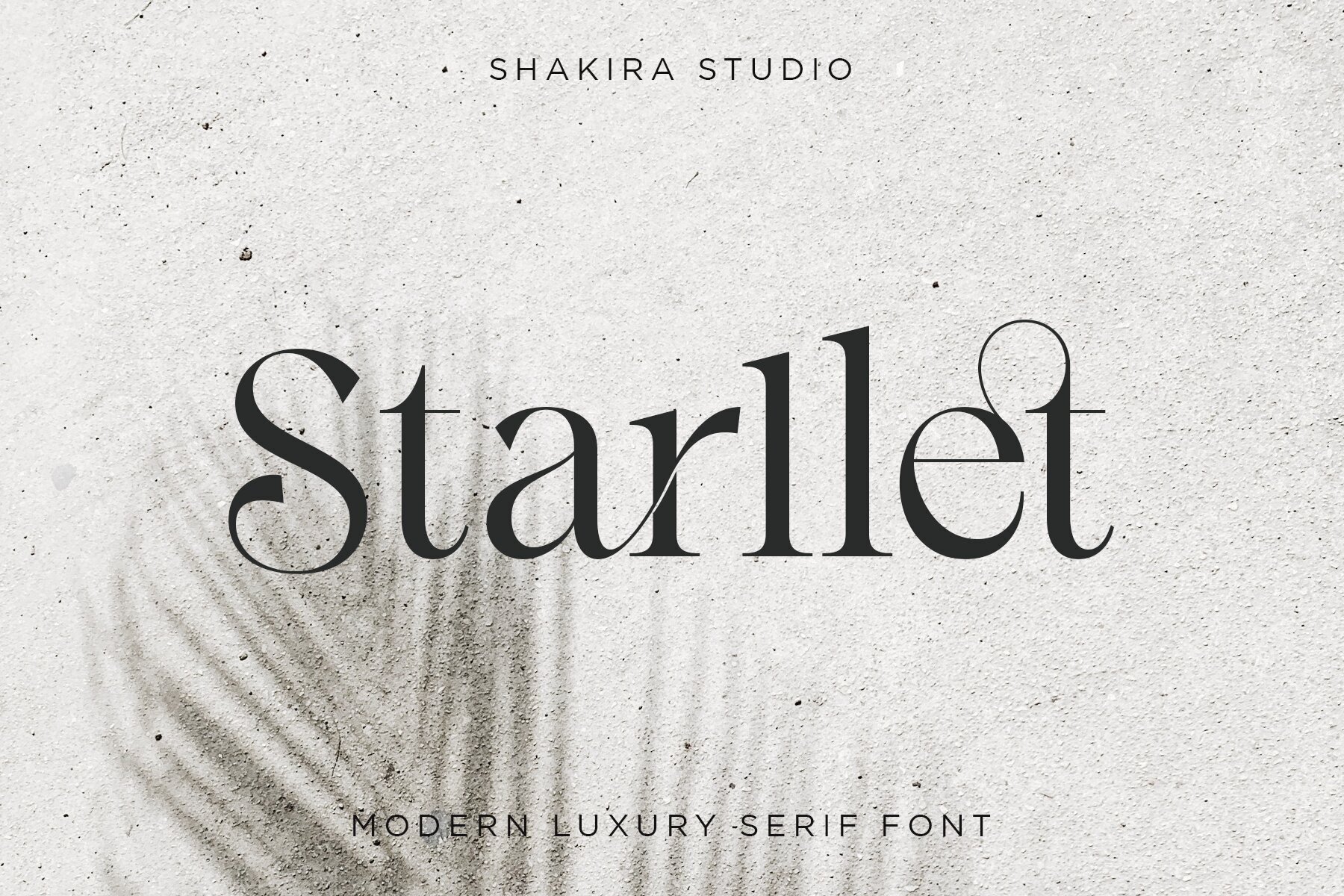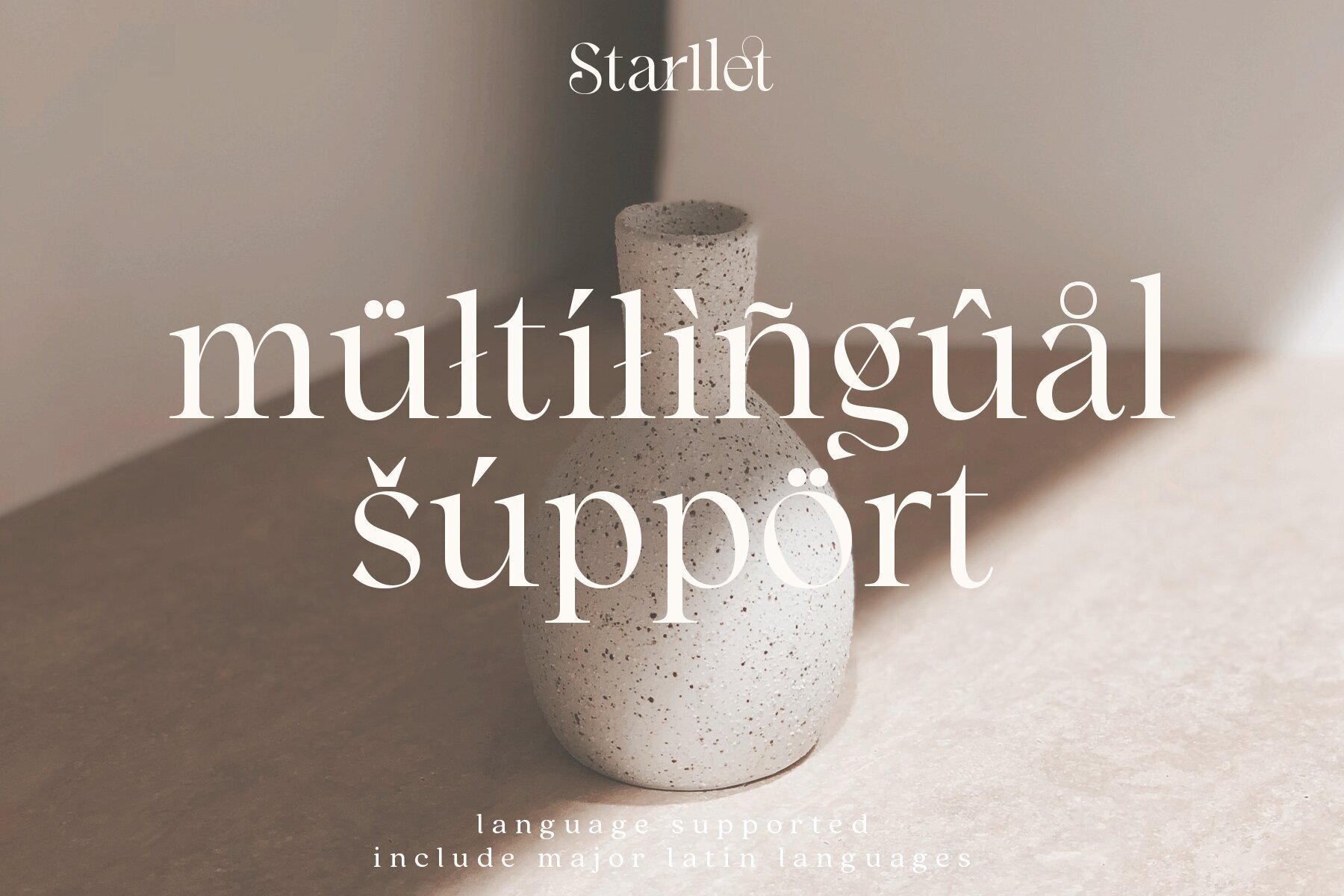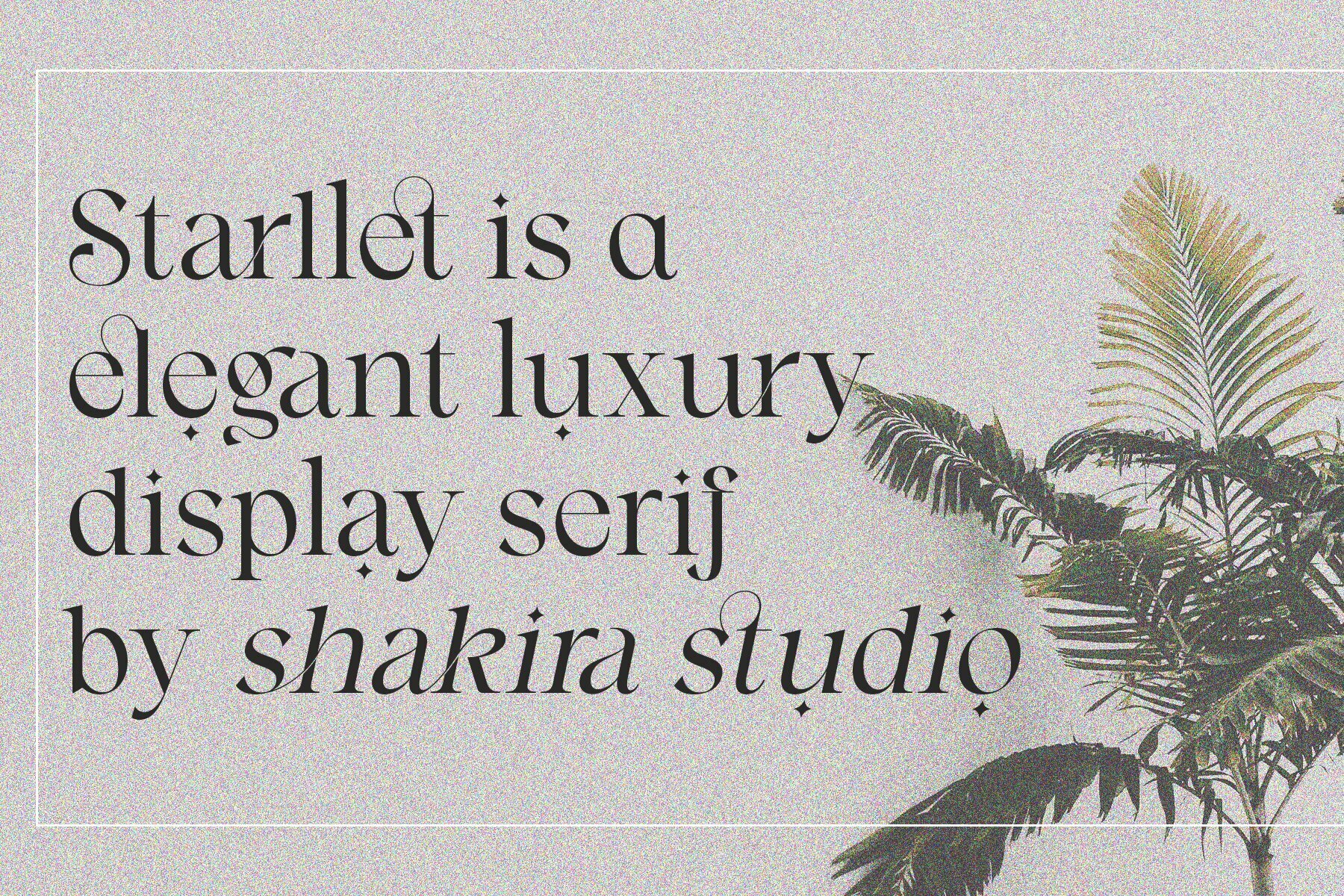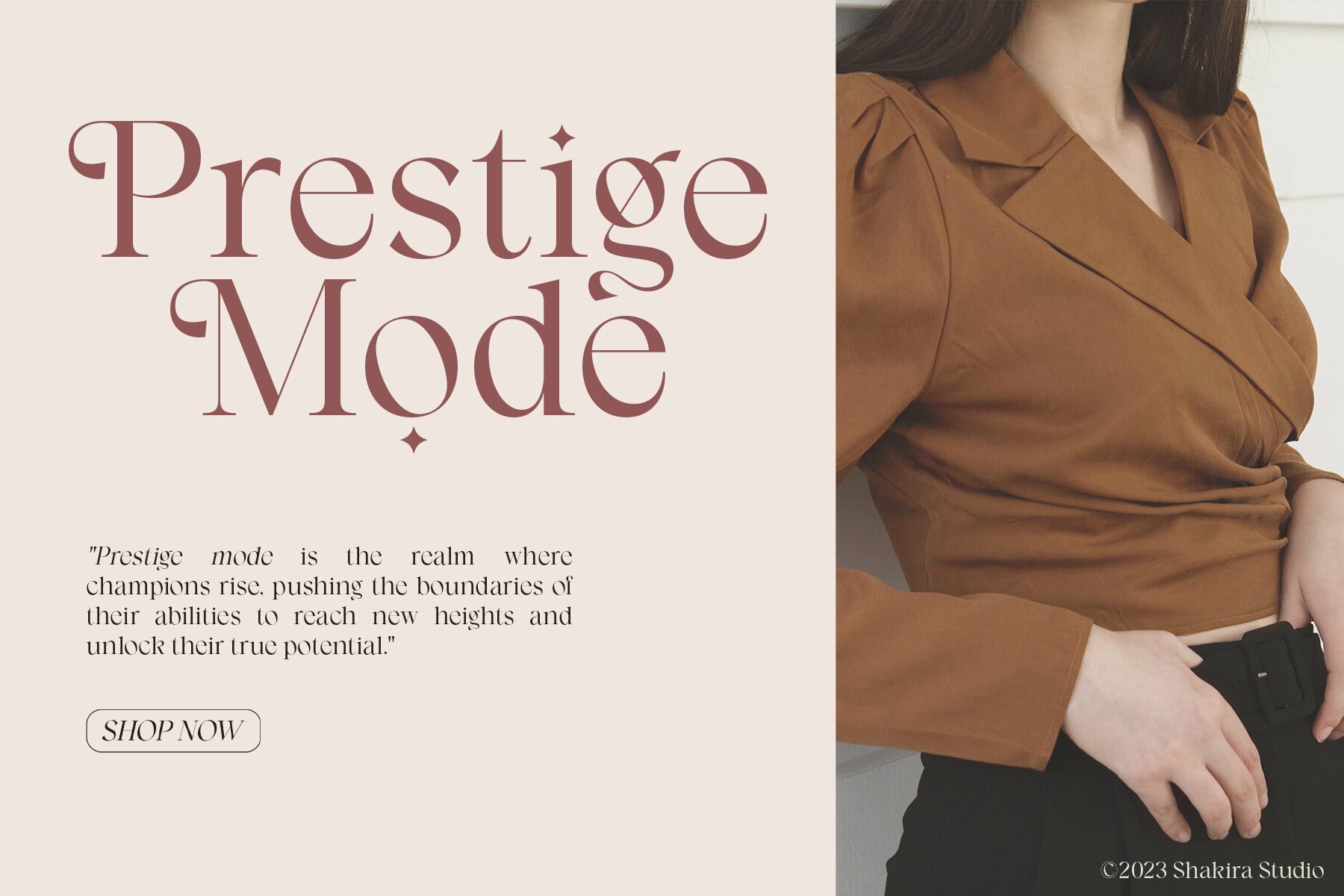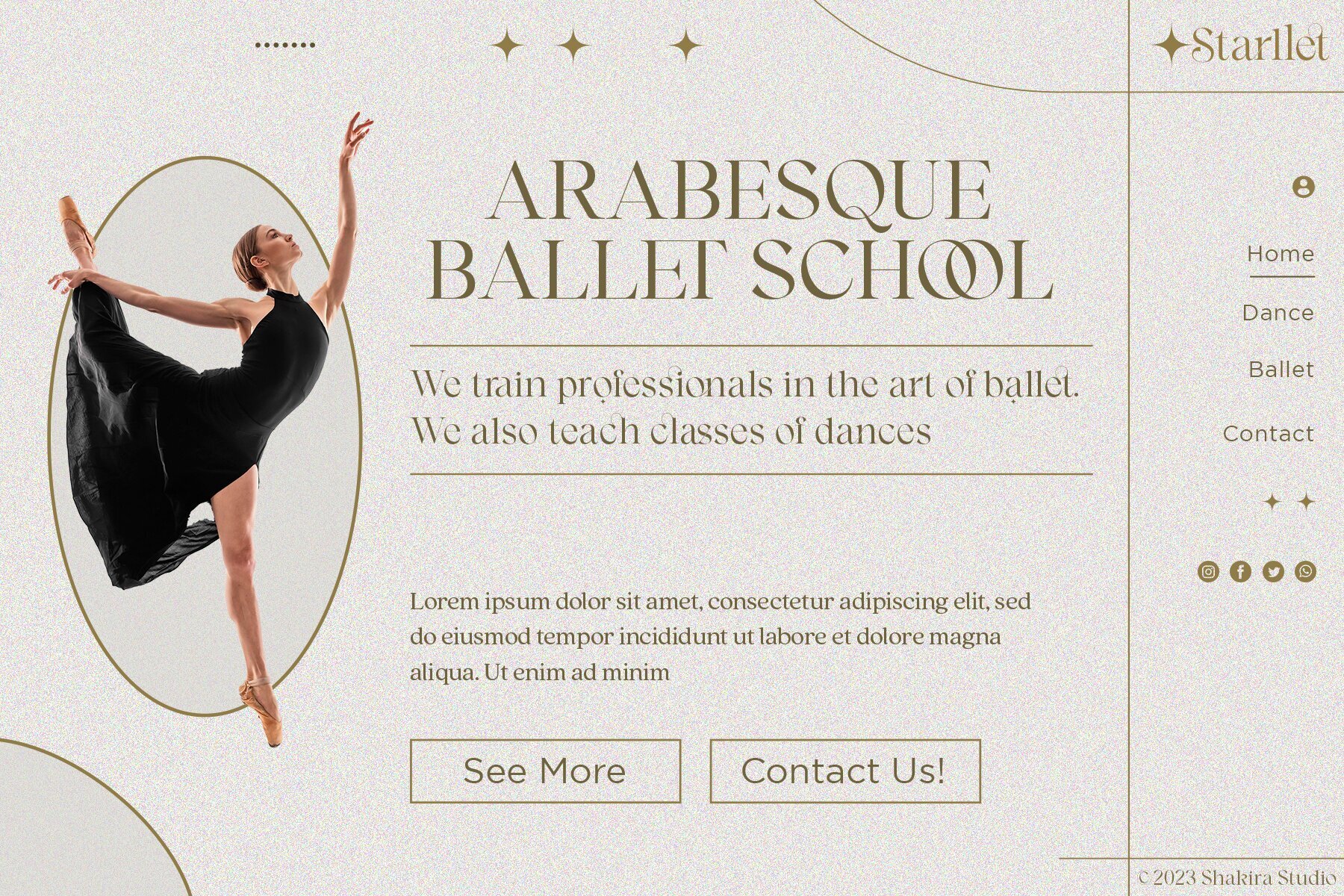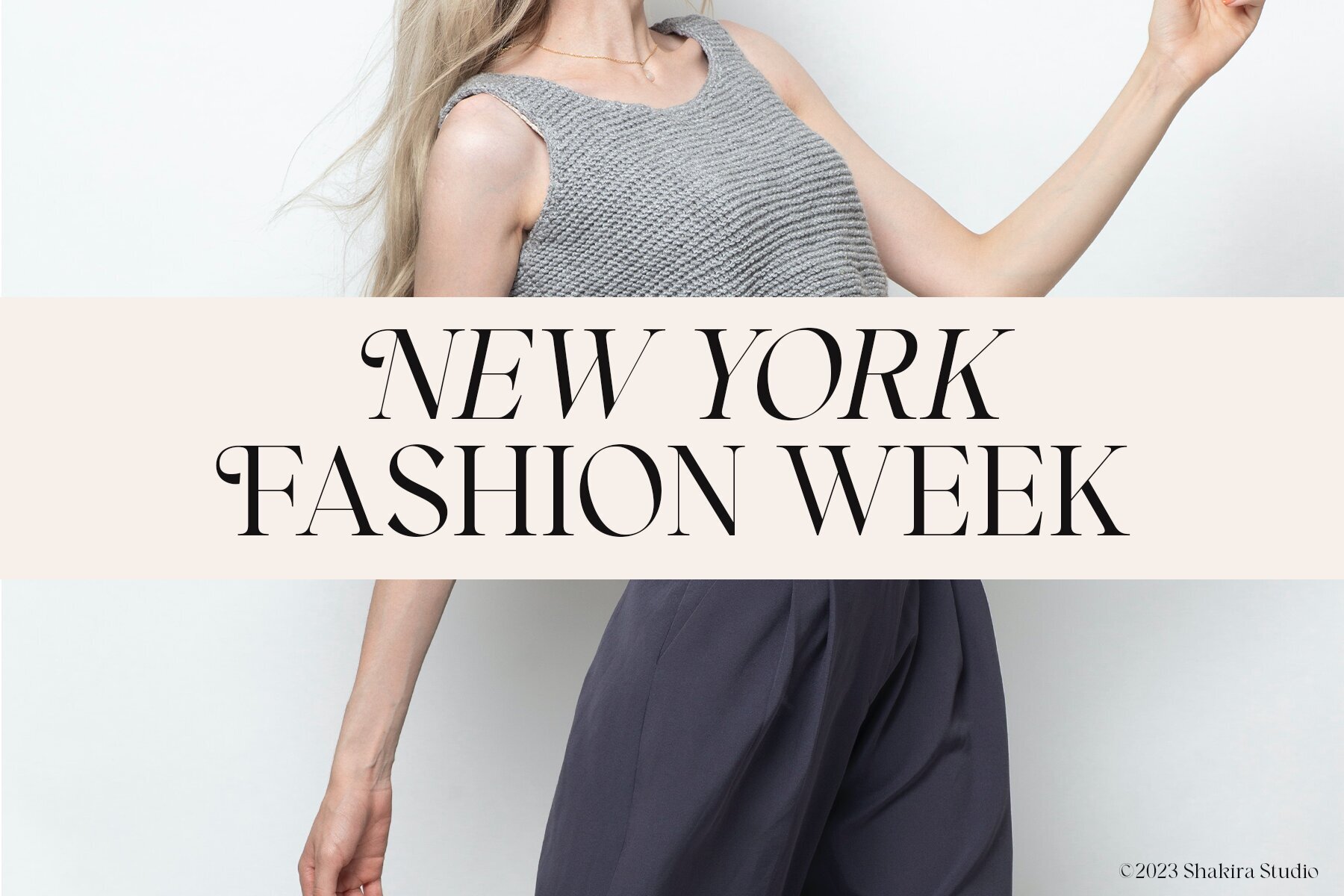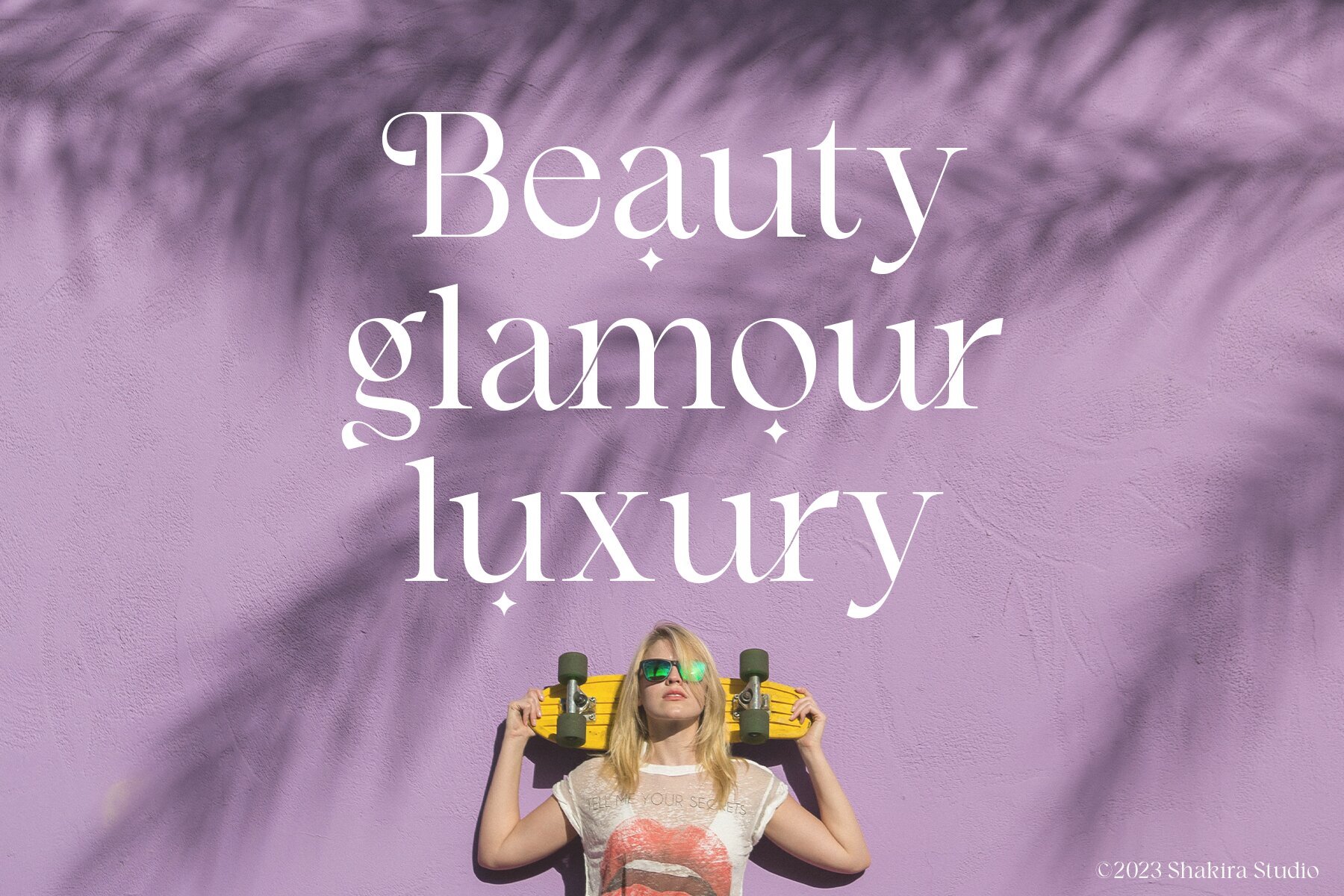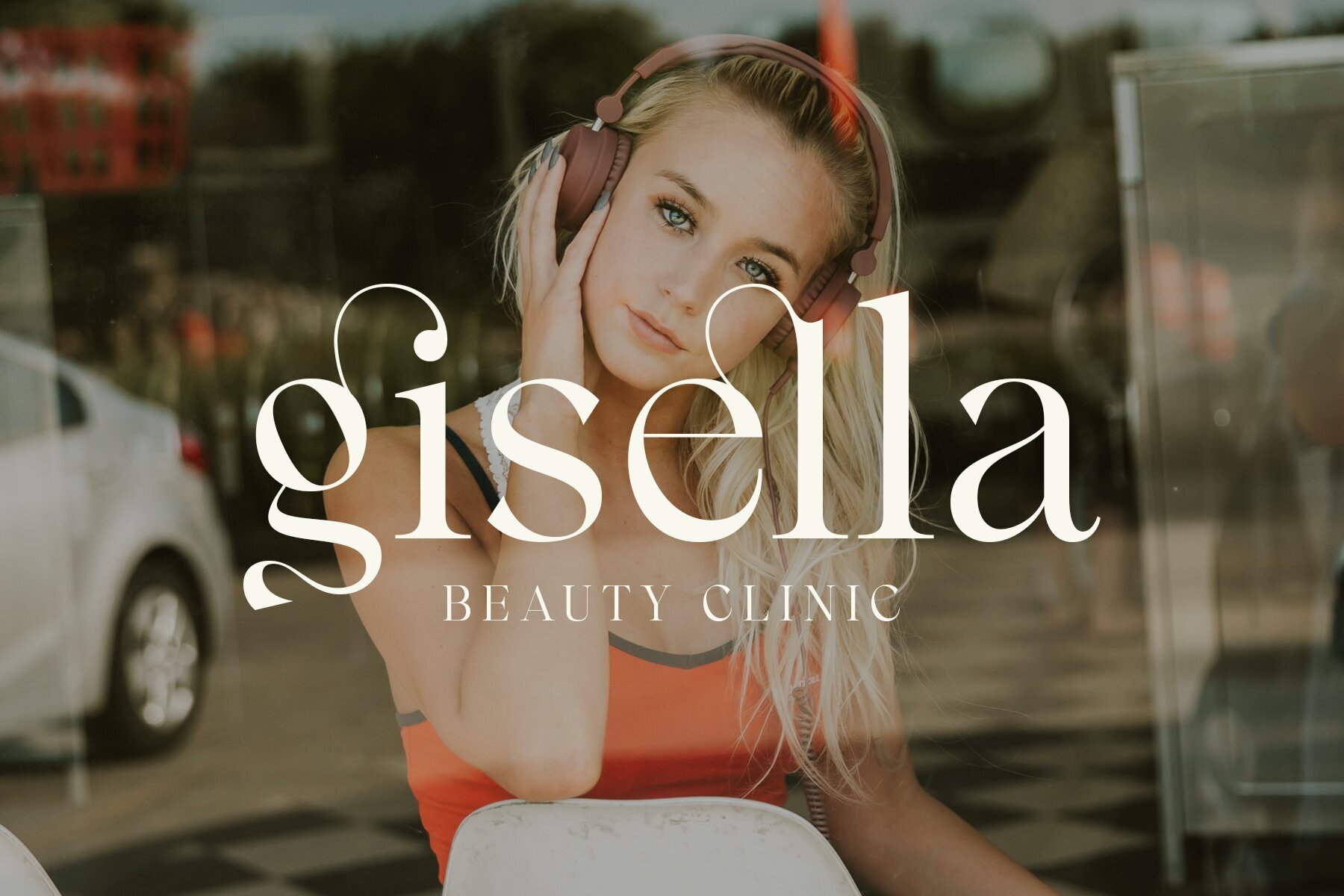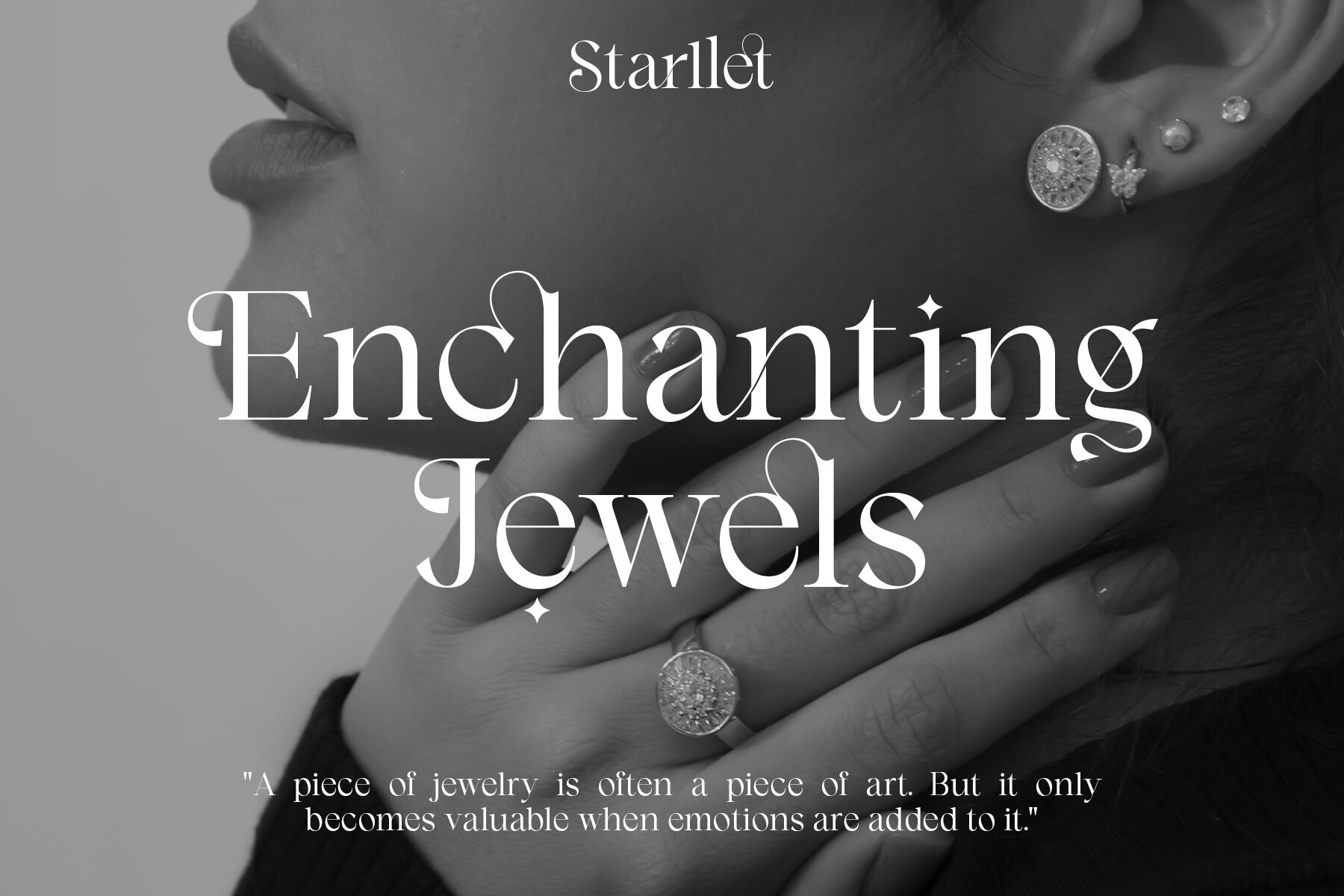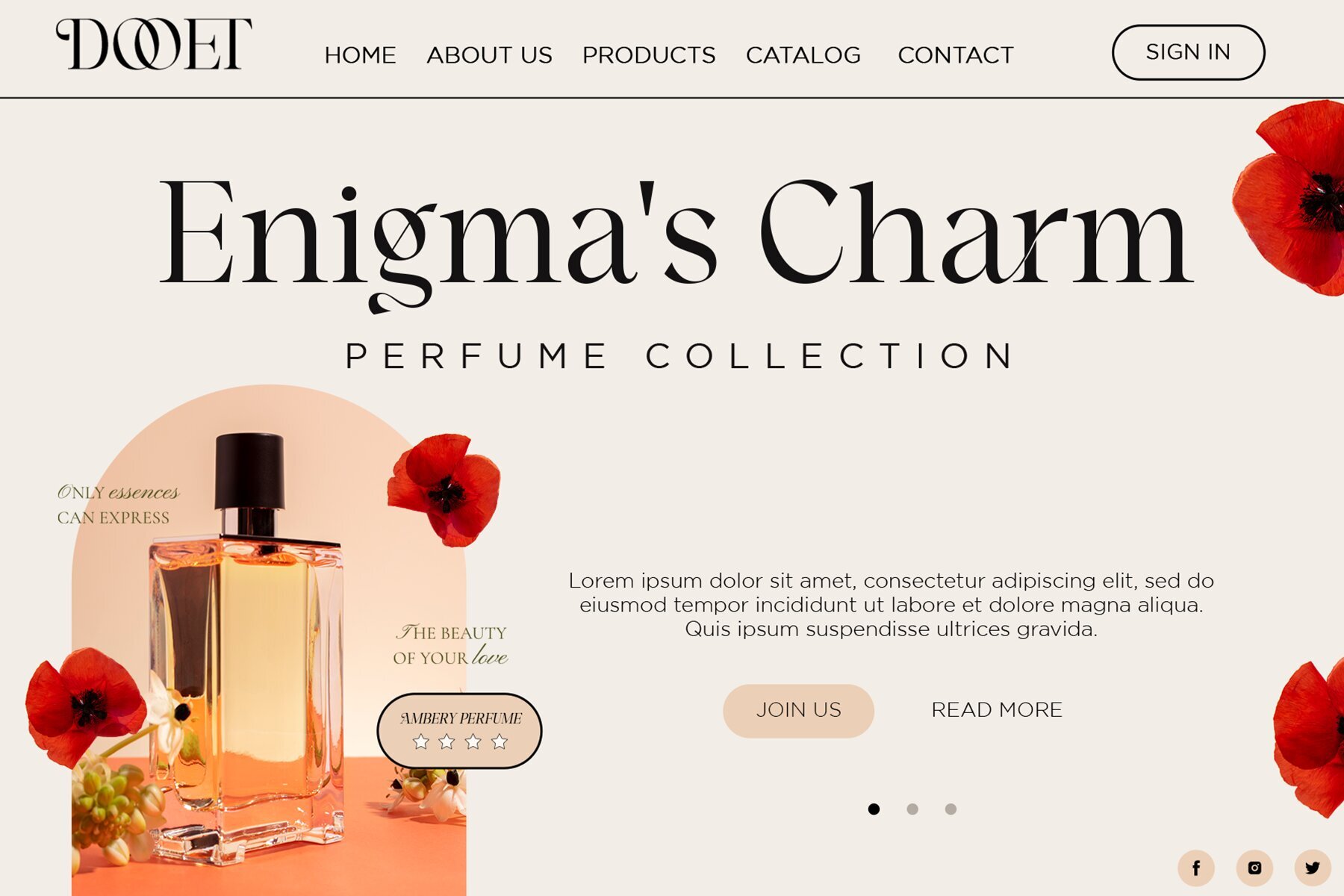
Starllet Font
Say hello to new serif font, Starllet! Starllet is a Luxury serif font. Create luxury, gorgeous headlines and elegant designs with a vintage flair. George's contrasting lines and curved terminals give a sleek, elegant look to logos, holiday cards, wedding invitations, quotes, advertisements, and more. Starllet has full set of modern uppercase and lowercase letters, numerals, punctuation, also multilingual symbols. It included opentype features like ligature, alternate and many others. Here's what you get: